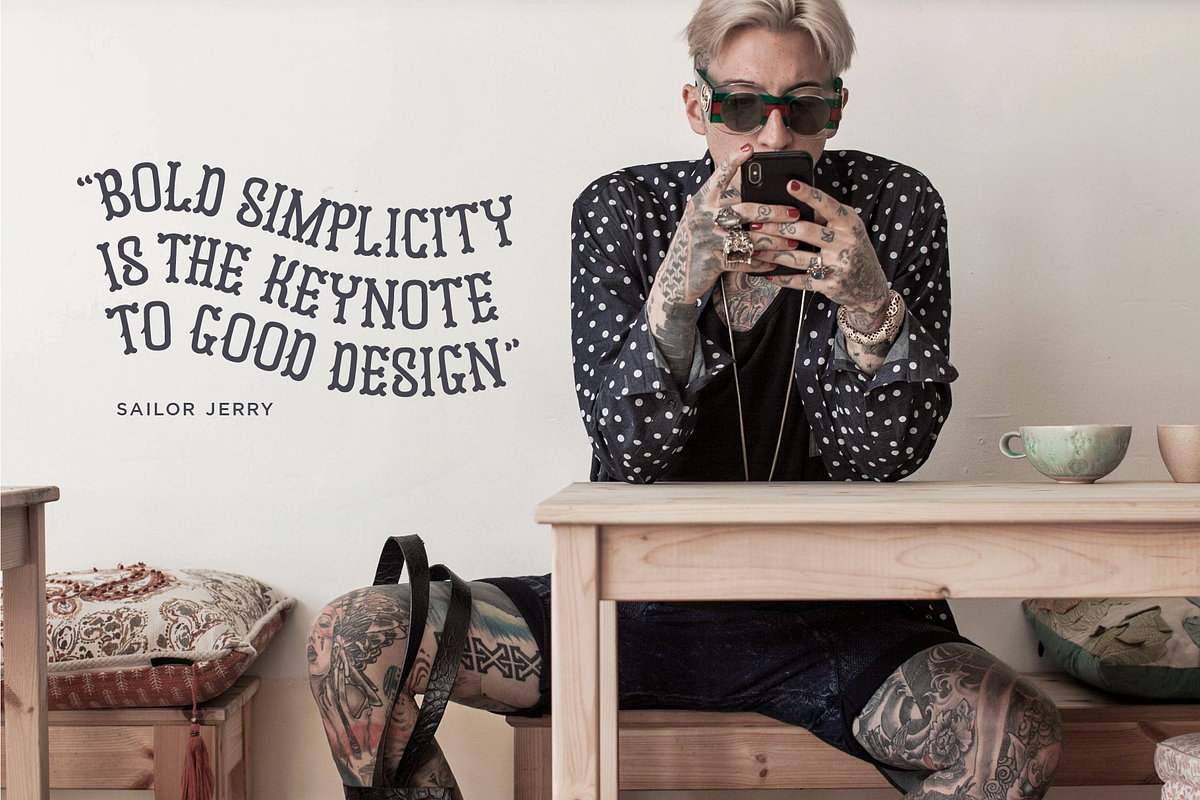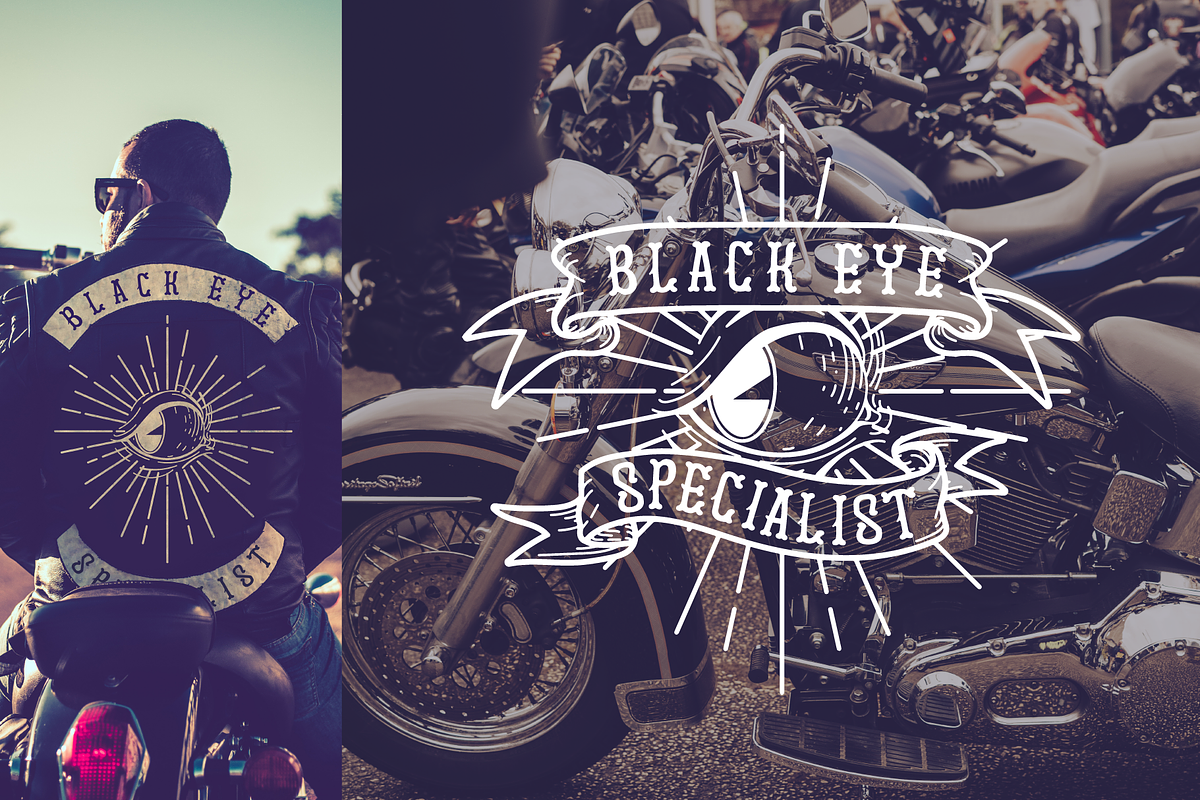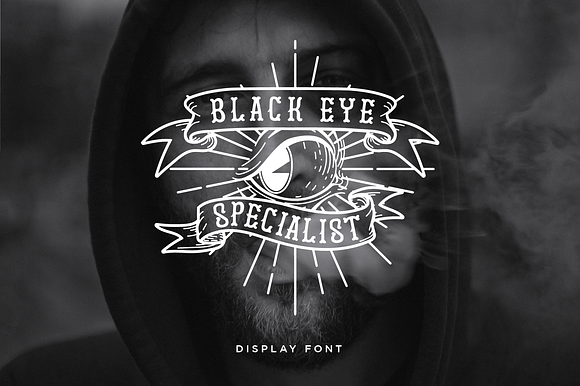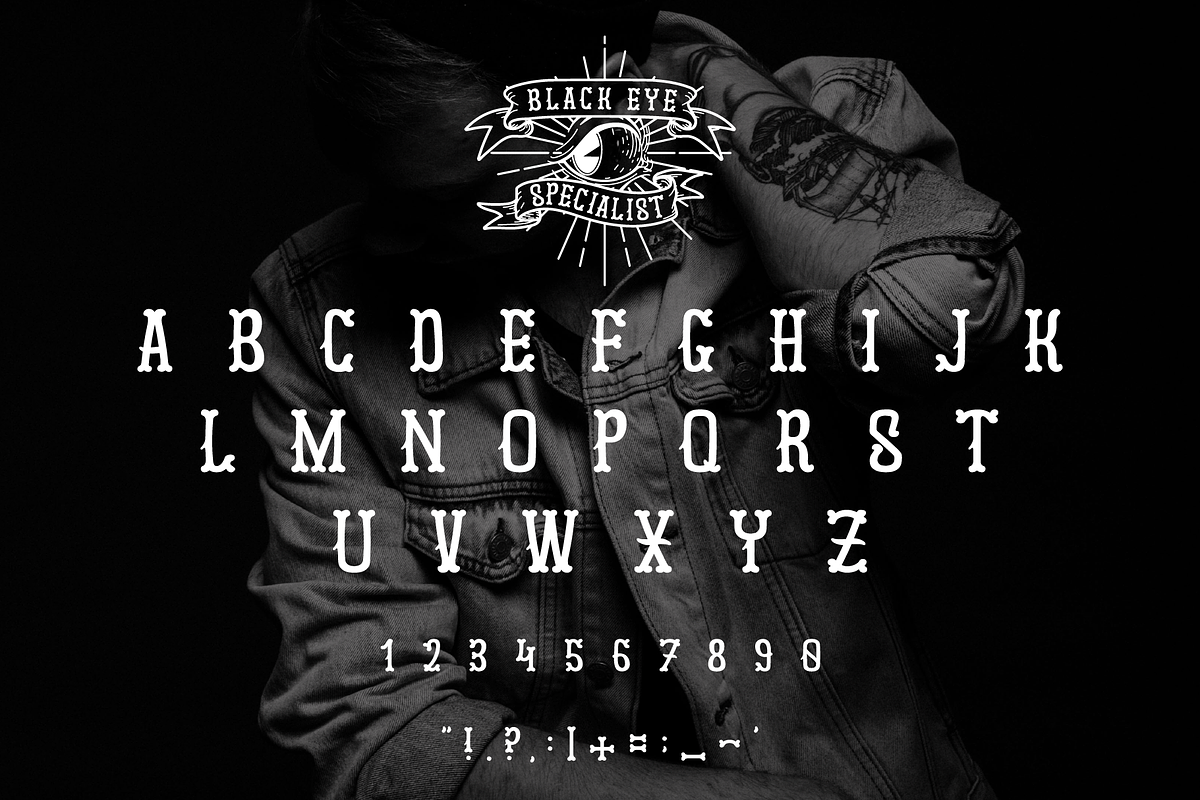
Black Eye Specialist Font
Black Eye Specialist is a Display font based on street shop signs from the 1930s.
Around the time of the great depression, when work was scarce, men would line up to be picked for work for the day. Those with black eyes would be passed over for fear of being trouble makers.
Enter the Black Eye Specialist, black eyes made natural in your local barber shop/tattoo parlour.